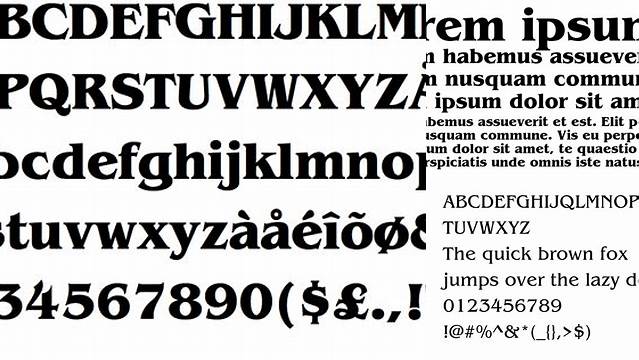
ITC Benguiat Pro Bold Font: Free Download Guide
Are you on the hunt for a striking and versatile font that can elevate your design projects? Look no further than the ITC Benguiat Pro Bold font. This font, known for its distinctive serifs and elegant curves, has become a favorite among designers for various applications. And the best part? You can often find the ITC Benguiat Pro Bold font free download options, making it accessible to creatives of all levels. In this comprehensive guide, we'll dive deep into the world of ITC Benguiat Pro Bold, exploring its features, usage, and how you can get your hands on it without spending a fortune.
ITC Benguiat Pro Bold: A Closer Look
Let's start by understanding what makes the ITC Benguiat Pro Bold font so special. Designed by the legendary Ed Benguiat, this font is a testament to classic typography with a modern twist. The bold variant, in particular, commands attention with its strong presence. The serifs are pronounced, giving it a touch of sophistication, while the overall design maintains a level of readability that makes it suitable for various uses. The font's versatility is one of its biggest strengths. You can use it for headlines, body text (though often best in larger sizes), branding, and even in artistic projects. It has a unique personality, capable of conveying both elegance and a sense of drama, depending on how it's used. The ITC Benguiat Pro Bold font also comes with a variety of weights and styles, giving you even more control over your designs. While we're focusing on the bold version here, the entire family offers a range of options to suit any project's needs. The character set is usually quite extensive, supporting multiple languages and special characters, which is essential for global design projects. In addition, the font's design is timeless, which is a huge plus. It doesn't feel dated, and its classic appeal means it will remain relevant for years. The design is also balanced in a way that catches the eye without being overwhelming. The spacing and kerning are thoughtfully designed, enhancing readability, which is particularly crucial for headlines and display text. When selecting a font, especially for branding, its overall impact is essential. The ITC Benguiat Pro Bold is a font that leaves a lasting impression, giving the brands or projects using it a professional and stylish look. It's a great option if you want to communicate a sense of luxury, creativity, or authority. The font’s bold weight is perfect for creating contrast and drawing attention to specific parts of your design. It is an ideal choice if you need to emphasize important information or make a statement.
Using the ITC Benguiat Pro Bold Font Effectively
Once you have your ITC Benguiat Pro Bold font free download, it's time to learn how to use it effectively in your projects. The most important thing is to choose the right size and weight. The bold weight is best used for headlines, titles, or short bursts of text that you want to emphasize. Overusing it in body text can make it hard to read. Contrast is key when using this font. Pair it with a lighter font for body text to create a visual hierarchy and make your design more appealing. Experiment with different colors. The ITC Benguiat Pro Bold font looks great in various colors. Black, white, and bold colors can create a powerful impact. However, also consider the background color to make sure the text is readable. Kerning and tracking are essential. Adjust the kerning (the space between specific character pairs) and tracking (the space between all characters in a block of text) to make the font look its best. These adjustments can improve readability and visual appeal. Consider the overall design. The ITC Benguiat Pro Bold font works well in a variety of design styles, from vintage to modern. Always choose a style that matches your project's theme and message. Test your designs on different devices and sizes. Ensure that your design looks good on various devices, such as desktops, tablets, and smartphones, to create a great user experience. Use it strategically in branding. The font can be a great tool for establishing a brand identity. Use it in your logo, headings, and other brand elements to make your brand look more recognizable and memorable. Lastly, seek feedback. Ask others for their opinions on your designs. Feedback can help you fine-tune your design and ensure it effectively communicates your message.
Alternatives to ITC Benguiat Pro Bold Font
If you're unable to find a suitable ITC Benguiat Pro Bold font free download or are looking for alternatives, there are several other fonts that capture a similar aesthetic. One of the most popular choices is Bodoni, which also features strong serifs and a classic elegance. This font family offers a range of weights, making it adaptable for various design needs. Didot is another great alternative, known for its high contrast and sophisticated feel. It shares the same refined look as the ITC Benguiat Pro Bold font and is perfect for high-end branding. Playfair Display is a free and open-source option. It's a high-contrast serif font designed for headlines and is available for free. It's a great choice if you're looking for a font with a similar impact but a wider range of accessibility. Another option is Butler. It’s a modern serif font with a strong personality and several weights and styles, making it versatile. Crimson Text is a free option that is designed for body text, but it can also be used for headlines. It has a classic appearance and great readability. When choosing an alternative, consider the project’s specific requirements. Think about the desired mood, the target audience, and the overall design style. Make sure the font you choose has a similar style to the original font and offers the necessary weights and styles. Test the font in various applications, such as headlines, body text, and logos, to see how it performs. Also, make sure the font is compatible with your software and operating system to prevent any compatibility problems. When looking for alternatives, you can try different search terms, such as